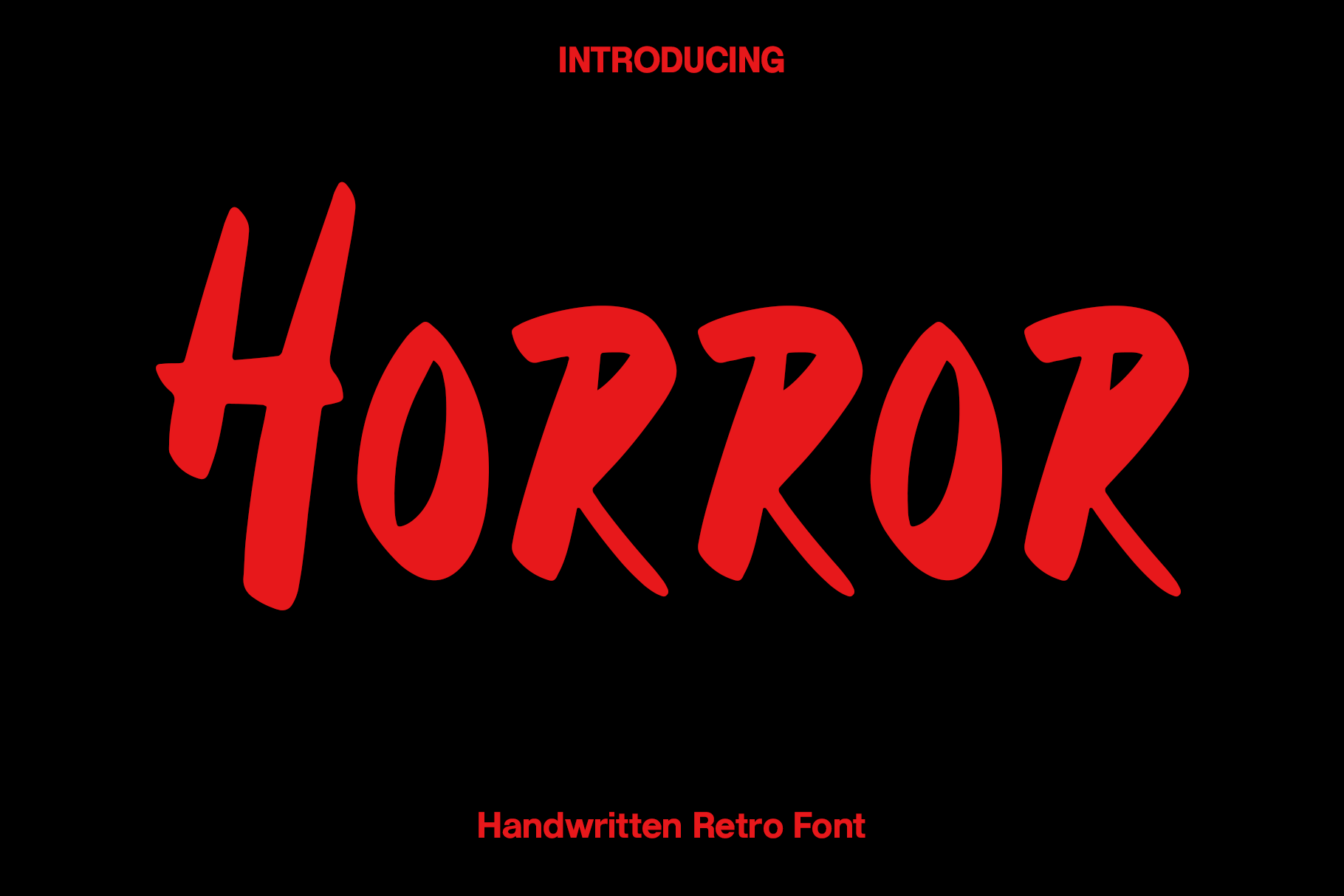
Horror - Handwritten Retro Font
Horror is a bold display font created to bring dark atmosphere, suspense, and unforgettable character to your creative projects. Inspired by classic horror movies, haunted places, eerie legends, and modern thriller aesthetics, Horror features sharp cutout details, dramatic letterforms, and a dynamic structure that instantly creates a chilling visual impact. Every character is carefully crafted to combine bold readability with an unsettling personality, making it the perfect choice for designs that demand attention.
Perfect for Halloween posters, horror movie titles, haunted house promotions, spooky event flyers, game logos, book covers, product packaging, YouTube thumbnails, streaming graphics, escape room branding, apparel, social media content, and creative advertising, Horror performs exceptionally well across both print and digital media. Its striking appearance helps create an intense mood while maintaining excellent legibility for display typography.
Whether you're designing promotional material for a horror event, creating eerie branding, developing cinematic titles, or producing dark-themed graphics, Horror provides the versatility and visual power needed to make every project unforgettable. Its dramatic styling adds mystery, tension, and excitement, helping your typography stand out with a bold and sinister personality.
With its haunting aesthetic and premium craftsmanship, Horror transforms ordinary text into spine-chilling visual statements filled with mystery and impact. It is an essential display font for designers looking to create memorable horror-themed, Halloween, and dark fantasy projects with a modern edge.